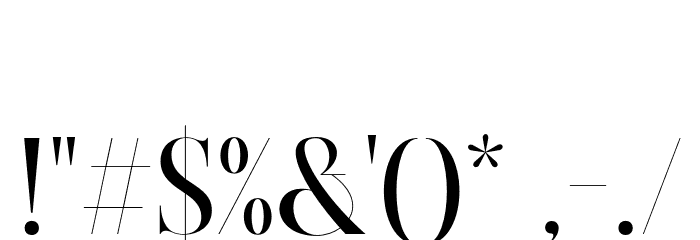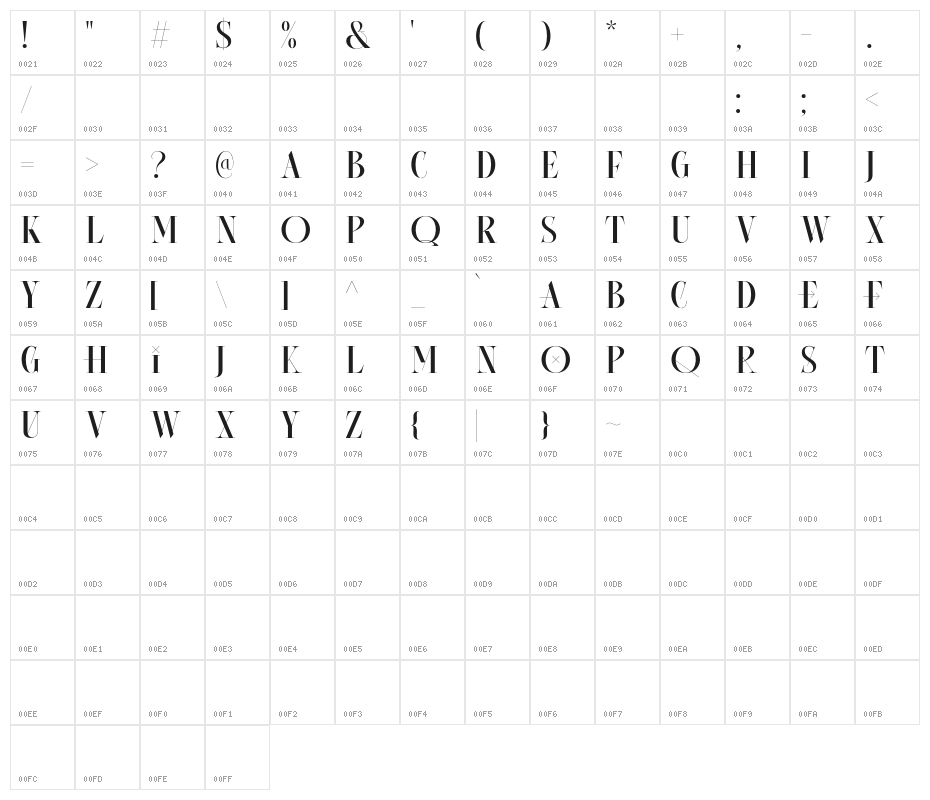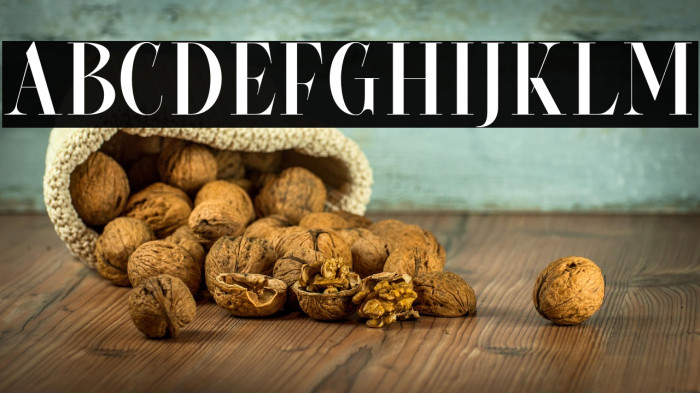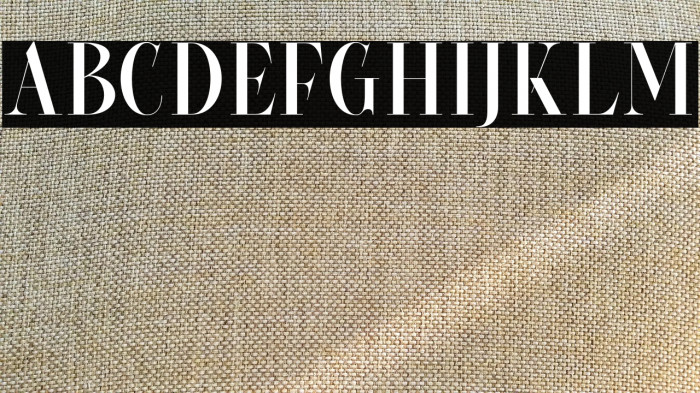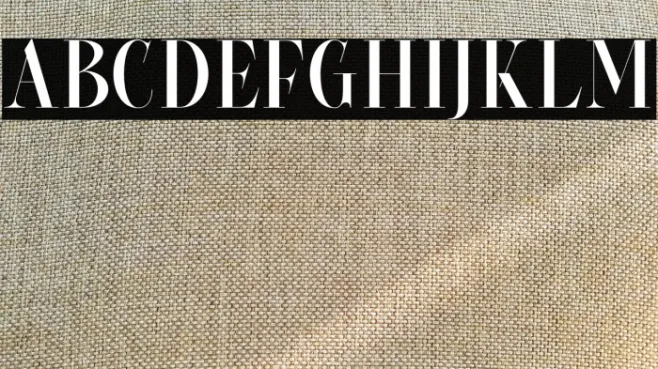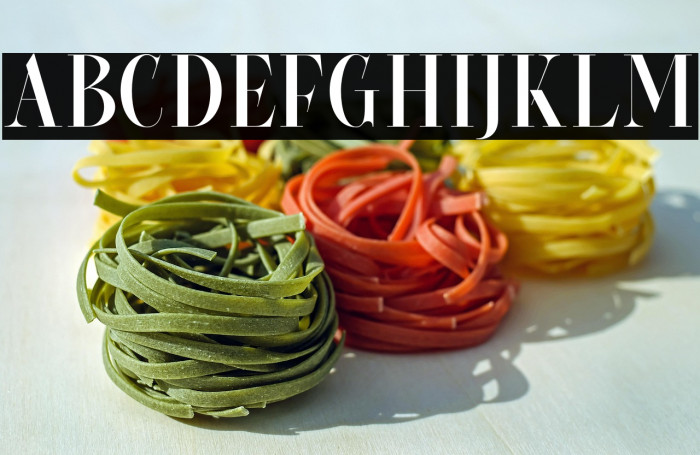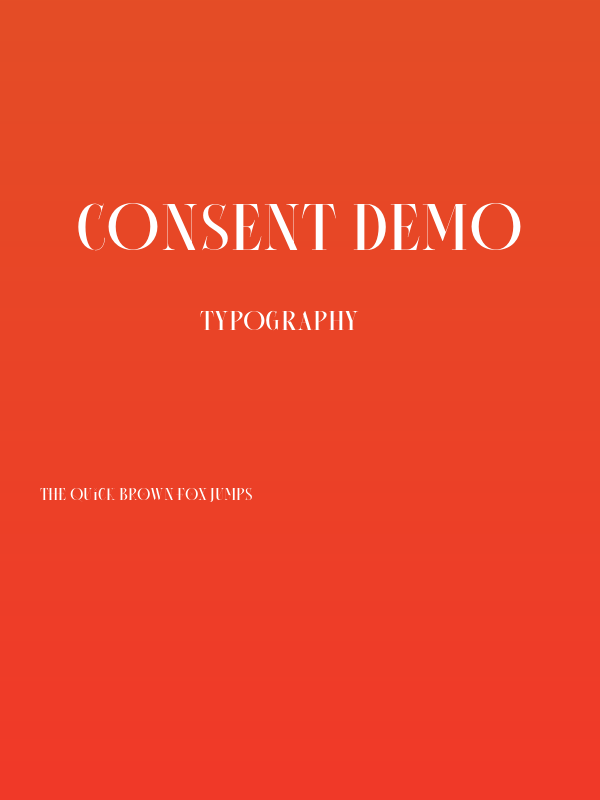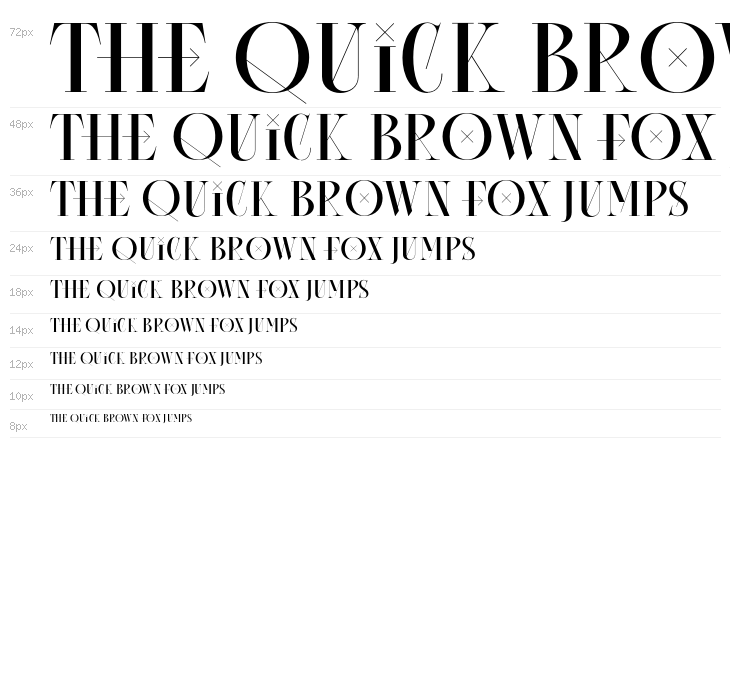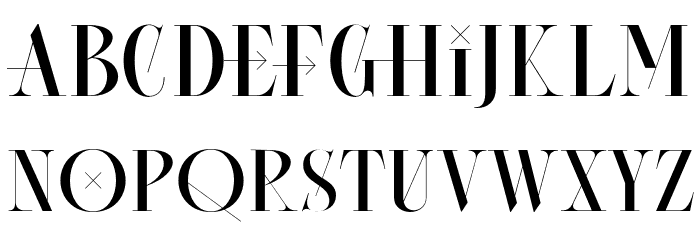
Consent DEMO Font
This font features a striking and elegant design with high contrast between thick and thin strokes, giving it a sophisticated and modern appearance. The uppercase letters are bold and commanding, while the lowercase letters maintain a consistent style that complements the overall aesthetic. The numerals and special characters are crafted with the same attention to detail, ensuring a cohesive look across all text. The font's sharp serifs and clean lines make it suitable for a variety of design applications, from luxury branding to editorial layouts.
Proposed ProjectsIdeal for luxury branding, editorial design, fashion magazines, and high-end product packaging.